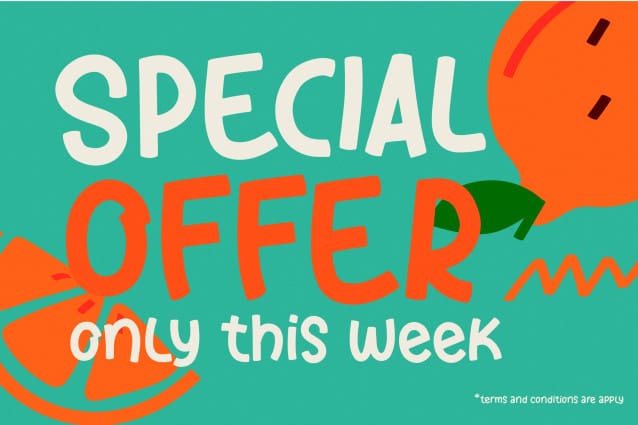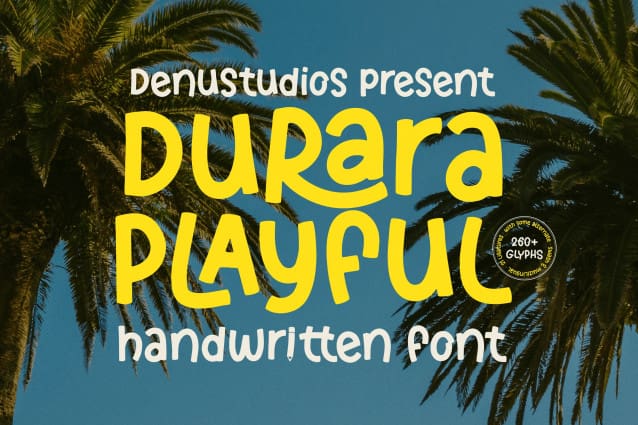
Durara Playful Font
Durara Playful Font | Handwritten Font, from Denustudios, suitable for any projects such as: logos, branding projects, homeware designs, product packaging, mugs, quotes, posters, shopping bags, t-shirts, book covers, name card, invitation cards, greeting cards, label, photography, watermark, special events, and all your other lovely projects that need a Handwritten Font taste.